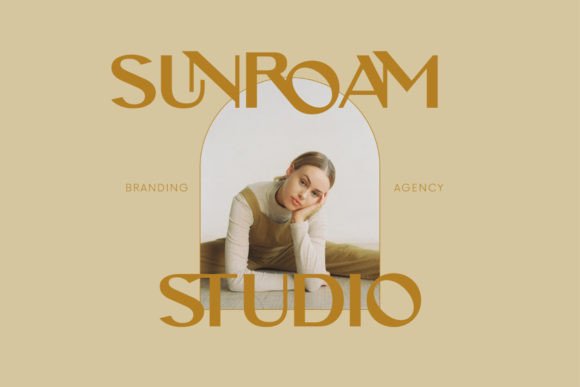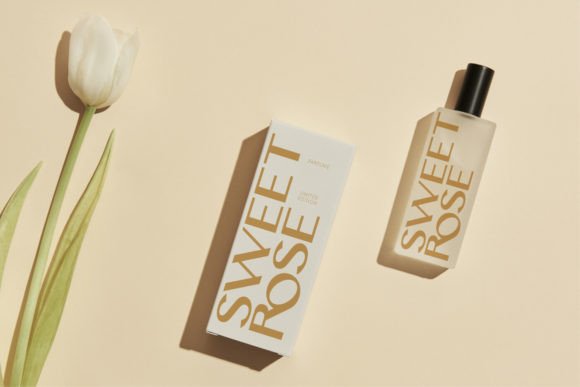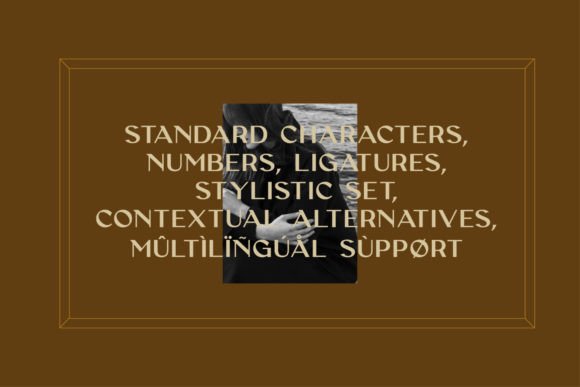
Introduction to New Boho Font
Have you ever been in the midst of a creative project, staring at a blank canvas, desperately searching for the perfect font to bring your idea to life? The struggle is real, but what if you stumbled upon a game-changing design resource that could elevate your work to the next level? Enter the New Boho Font, a stunning sans serif display font that’s about to revolutionize the way you approach typography.
This enchanting font boasts an impressive set of high-quality ligatures, allowing you to craft truly striking type designs that exude elegance and whimsy. Whether you’re working on branding and logo design, web headers and hero overlays, or content creation, the New Boho Font is an invaluable asset that will breathe new life into your projects.
Key Features of New Boho Font
- High-quality design resource with a unique, bohemian-inspired aesthetic.
- Perfect for designers and artists working on creative projects, such as typography-based art, posters, and web designs.
Honest Review: New Boho Font
As a designer, I’m always on the lookout for high quality design resources to elevate my creative projects. The New Boho Font is one such find that caught my attention. I was excited to see how it would perform in various design contexts.
Here are some aspects where the New Boho Font shines:
- ✨ Elegant and sophisticated lettering, perfect for branding and typography-heavy designs.
- ✨ A wide range of language support, making it an excellent choice for multi-lingual projects.
- ✨ Smooth and subtle texture, adding depth and visual interest to designs.
- ⚠️ Limited font weights and styles, which may not be suitable for complex or detailed designs.
Overall, the New Boho Font is a solid addition to any designer’s toolkit, offering a free download and a range of creative possibilities. While it may have some limitations, its high quality and elegant design make it a worthwhile resource for any creative project.
The New Boho Font is a versatile design resource ideal for creative projects. With its high quality and unique aesthetic, it can elevate any project. For a seamless experience, download the font with a transparent background.
The New Boho Font is perfect for creative projects such as wedding invitations, social media graphics, and blog posts. Its high quality and unique aesthetic make it an ideal choice for designers looking to add a touch of sophistication to their projects.